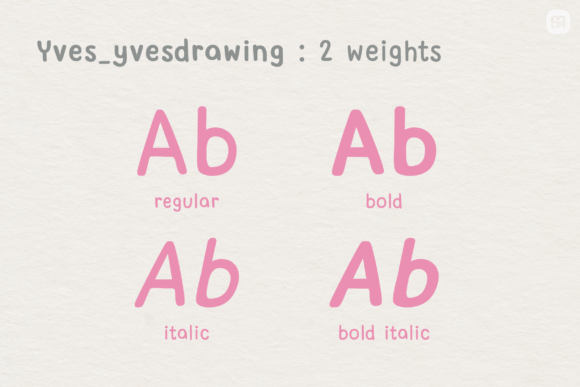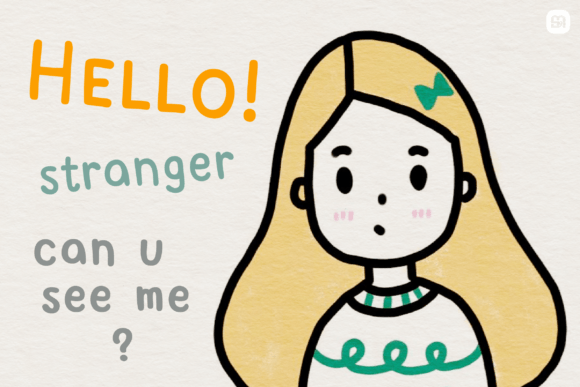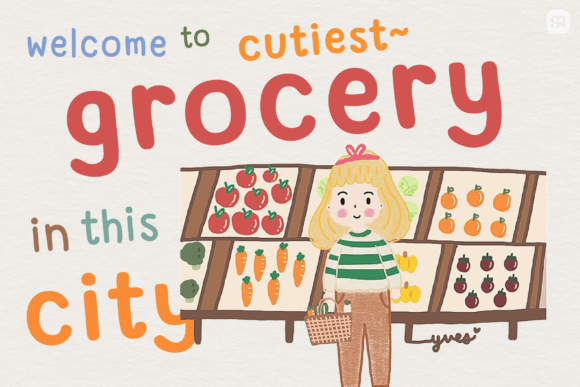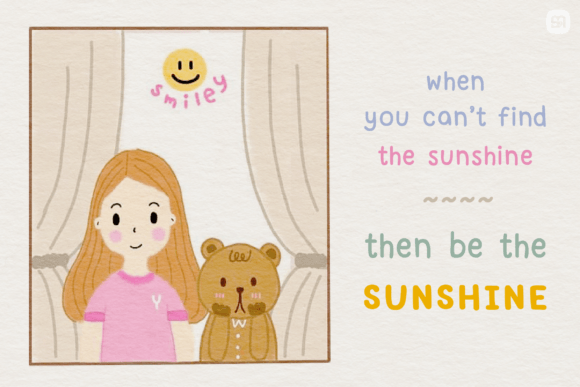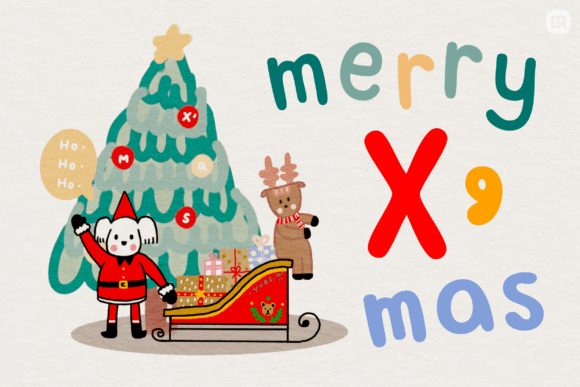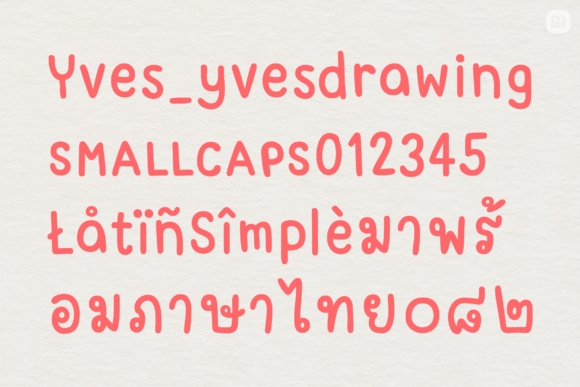
Yves Yvesdrawing Font
About Yves Yvesdrawing Font
**Yves Yvesdrawing: A Fun and Cute Handwritten Font**
*Yves Yvesdrawing* is a delightful and playful handwritten font that injects a sense of fun and cuteness into your design projects. This font’s charming and whimsical style makes it an invaluable addition to your font collection, as it has the potential to elevate a wide range of creative endeavors.
One of the standout features of *Yves Yvesdrawing* is its fun and lively appearance. The font’s handwritten, playful strokes and charming characters give it a distinct personality that’s perfect for projects where a touch of cuteness is desired.
With *Yves Yvesdrawing*, your designs take on a cheerful and lighthearted vibe. Whether you’re creating greeting cards, posters, children’s book illustrations, or social media graphics, this font adds a sense of joy and whimsy that resonates with audiences of all ages. Its handwritten style conveys a friendly and approachable tone.
*Yves Yvesdrawing* is particularly well-suited for projects aimed at children and families. Its cute and playful nature makes it an excellent choice for designing materials like kids’ book covers, educational materials, and animated content. The font’s friendly appearance fosters engagement and makes learning more enjoyable.
Logos created with *Yves Yvesdrawing* have a distinctive and memorable quality. If you want your brand to be perceived as approachable and family-friendly, this font can help you achieve that image. Its playful script style communicates a warm and inviting brand personality.
Web design benefits from the friendly and legible nature of *Yves Yvesdrawing*. The font’s readability ensures that your online content is accessible and engaging. Use it for headings, buttons, or playful elements to create a welcoming and visually appealing website.
Printed materials, such as flyers, invitations, and posters, come to life with the cute and whimsical charm of *Yves Yvesdrawing*. It adds a sense of wonder and delight to your layouts, making your content stand out and leaving a positive impression on viewers.
Social media graphics shine with the delightful flair of *Yves Yvesdrawing*. Craft eye-catching posts, stories, and banners that resonate with a wide audience. This font’s playful appearance helps your content connect with viewers on a personal and emotional level.
Product packaging takes on a charming and approachable look with *Yves Yvesdrawing*. Whether you’re designing labels, tags, or product descriptions, this font conveys a sense of friendliness and authenticity that appeals to consumers seeking a personal connection with brands.
Beyond these applications, *Yves Yvesdrawing* offers endless creative possibilities. Its fun and cute style make it suitable for a wide variety of design projects, from branding and stationery to digital presentations and more. Its potential to elevate any creation lies in its playful and whimsical charm.
In summary, *Yves Yvesdrawing* is a fun and cute handwritten font that infuses your design projects with a sense of playfulness and charm. Its whimsical appeal makes it a valuable asset for children’s materials, branding, web design, print materials, social media graphics, product packaging, and various other creative endeavors. Embrace the cuteness of *Yves Yvesdrawing* and watch your designs come to life with a joyful and friendly spirit.